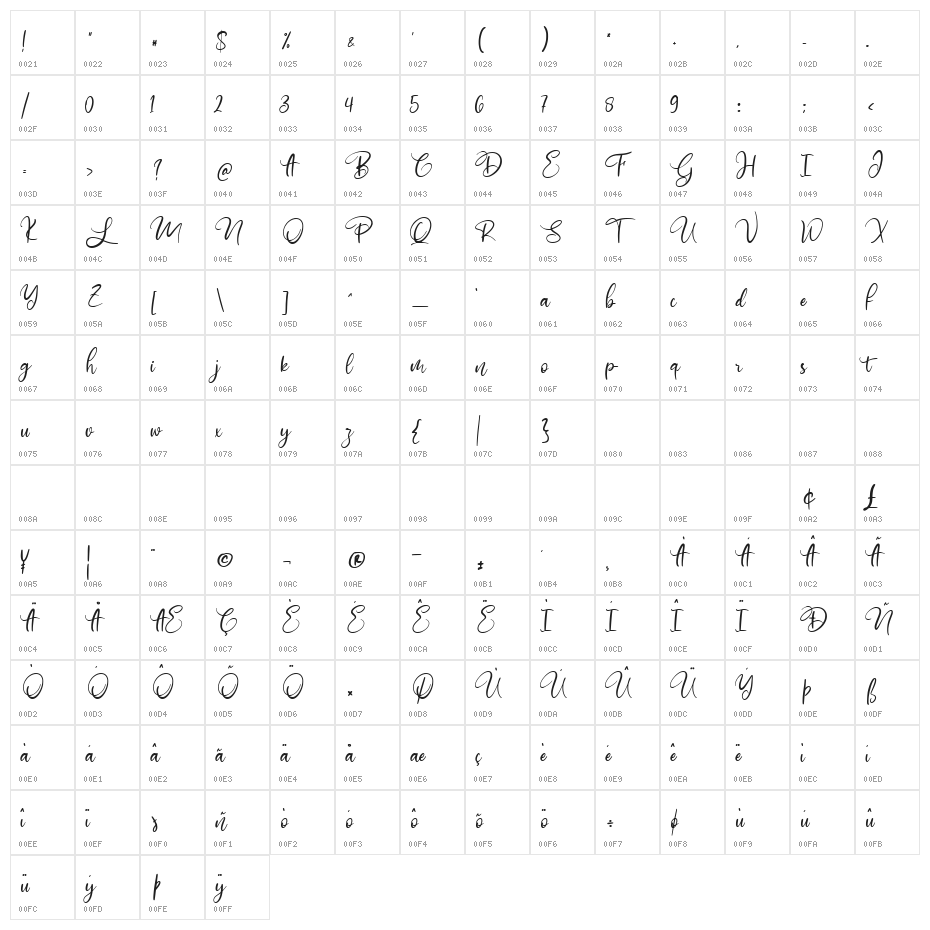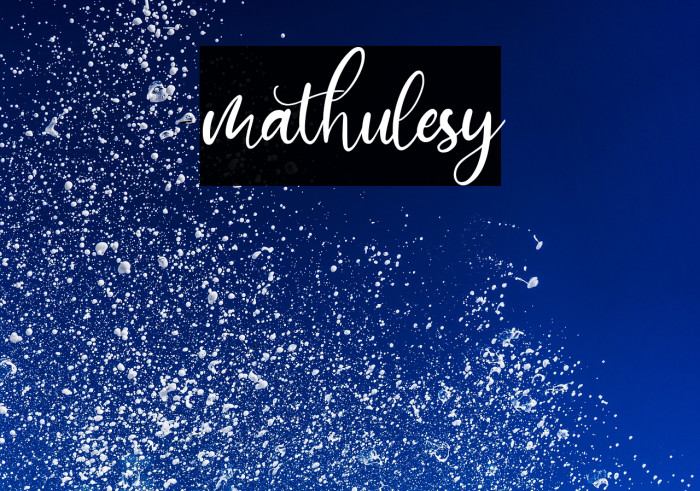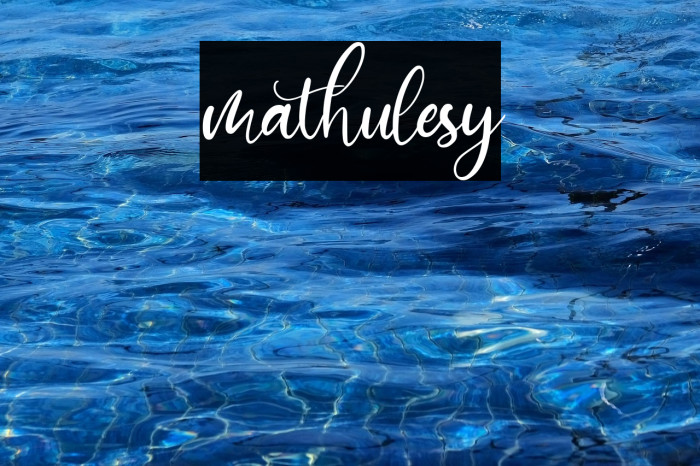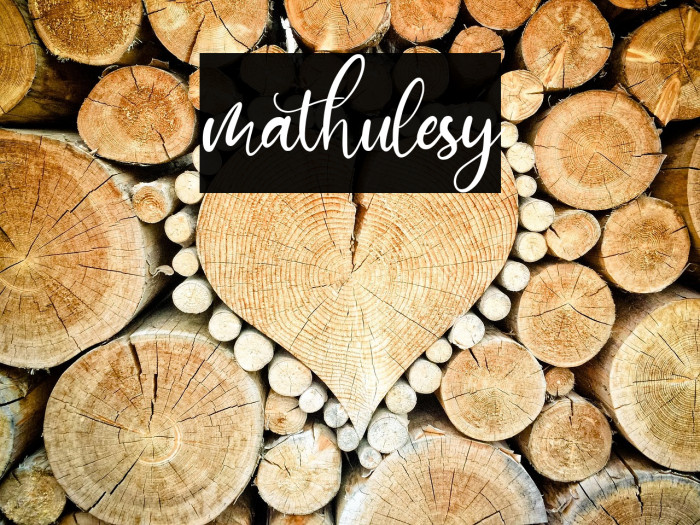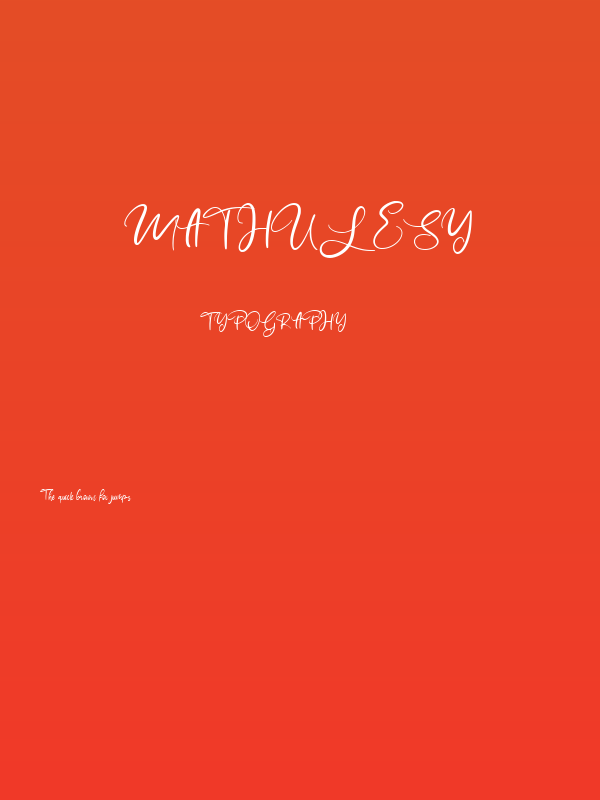
mathulesy Font
mathulesy Description
This font exudes elegance and sophistication with its flowing, cursive style. The uppercase letters are characterized by their sweeping curves and intricate loops, giving a sense of fluidity and grace. The lowercase letters maintain a consistent style, with smooth connections and a slightly more compact form. The numerals are clear and legible, yet they retain the decorative flair of the overall design. Special characters are thoughtfully integrated, maintaining the font's cohesive aesthetic. This script font is perfect for projects that require a touch of elegance and personal flair, such as wedding invitations, branding, and high-end product packaging. Its artistic nature makes it stand out, yet it remains readable and functional.
| Overall Style | Elegant |
| Use Case | Logos, Invitations, Branding |
| Proposed Projects | Ideal for wedding invitations, branding, high-end product packaging, and artistic projects. |